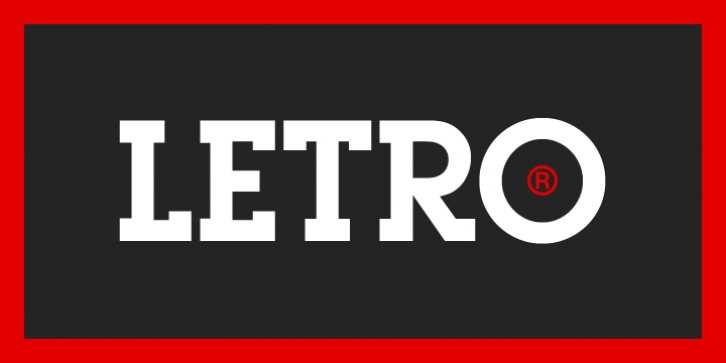
Letro was designed by Alex Haigh, Dawn Lewandowski and published by Thinkdust. Letro contains 2 styles and family package options.
Letro's sturdy, slab serif form and sleek alternates make it perfect for any sort of display, whether it's professional or personal, casual or serious, big, small, on a computer screen or on paper. Letro does everything: elegant while slightly blocky, stylised while legible, solid but full of finesse, this font isn't the jack of all trades, it comes close to being the master. Letro comes in two weights, light and regular, with support for a multitude of languages. When you need a font with serifs to get the job done, Letro is your go to type.
Letro Light·